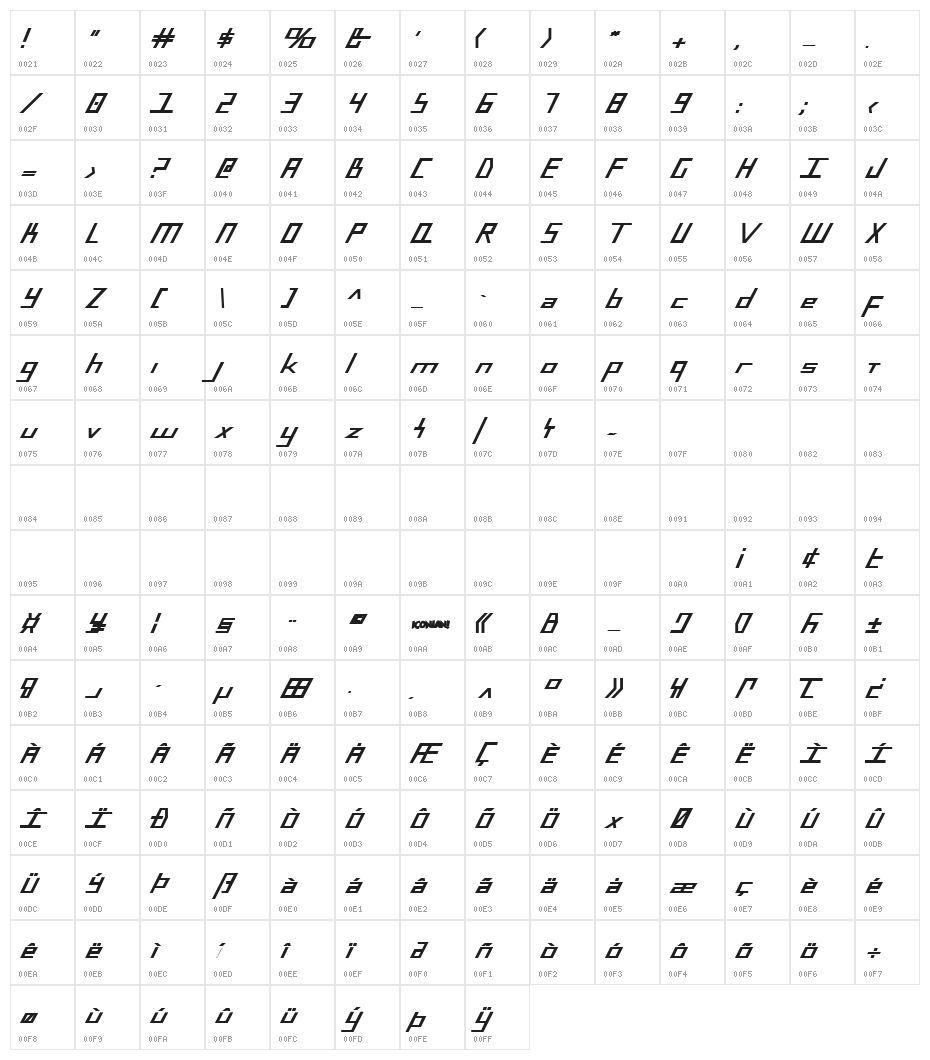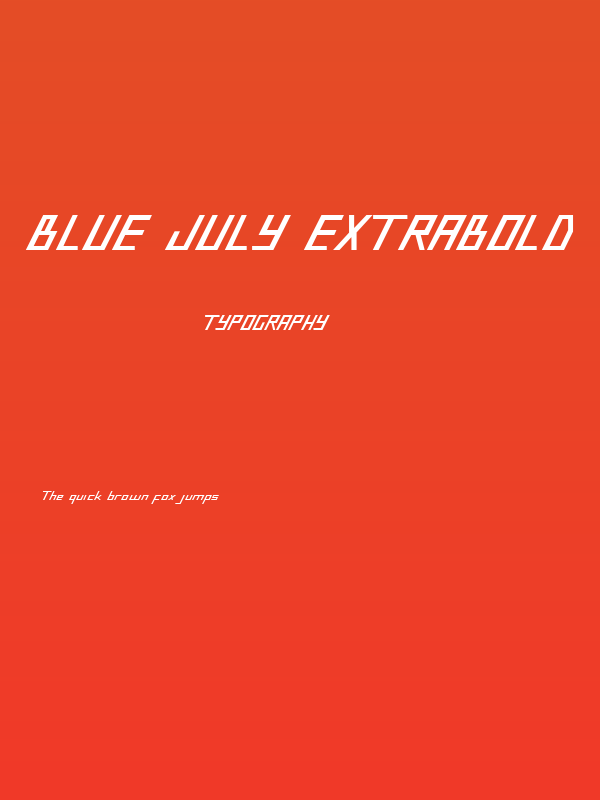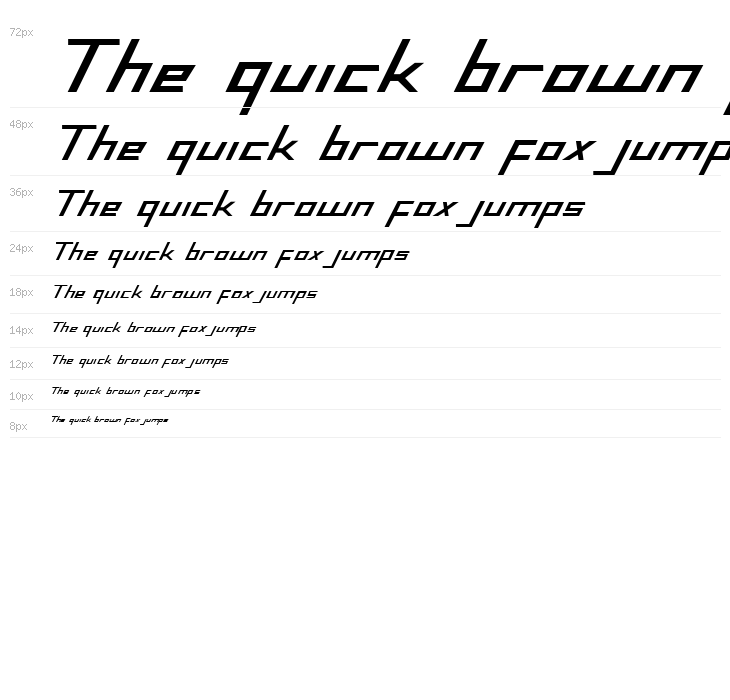
Blue July ExtraBold Font
Blue July ExtraBold Description
This font features a bold and angular design with a futuristic and dynamic appearance. The characters are sharply defined with a consistent slant, giving a sense of motion and energy. The uppercase and lowercase letters maintain a uniform style, with distinct geometric shapes and clean lines. Numbers and special characters follow the same angular aesthetic, ensuring a cohesive look across all text elements. The font's unique style makes it stand out, suitable for projects that require a modern and edgy feel.